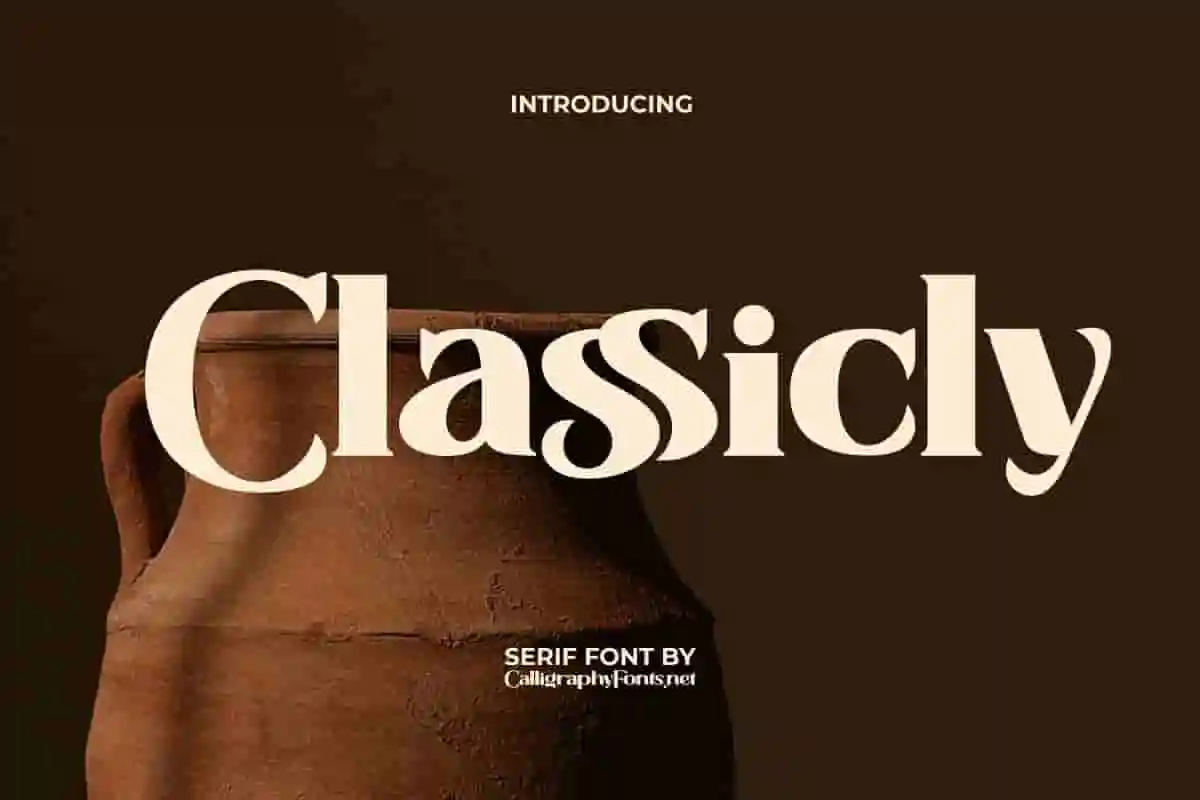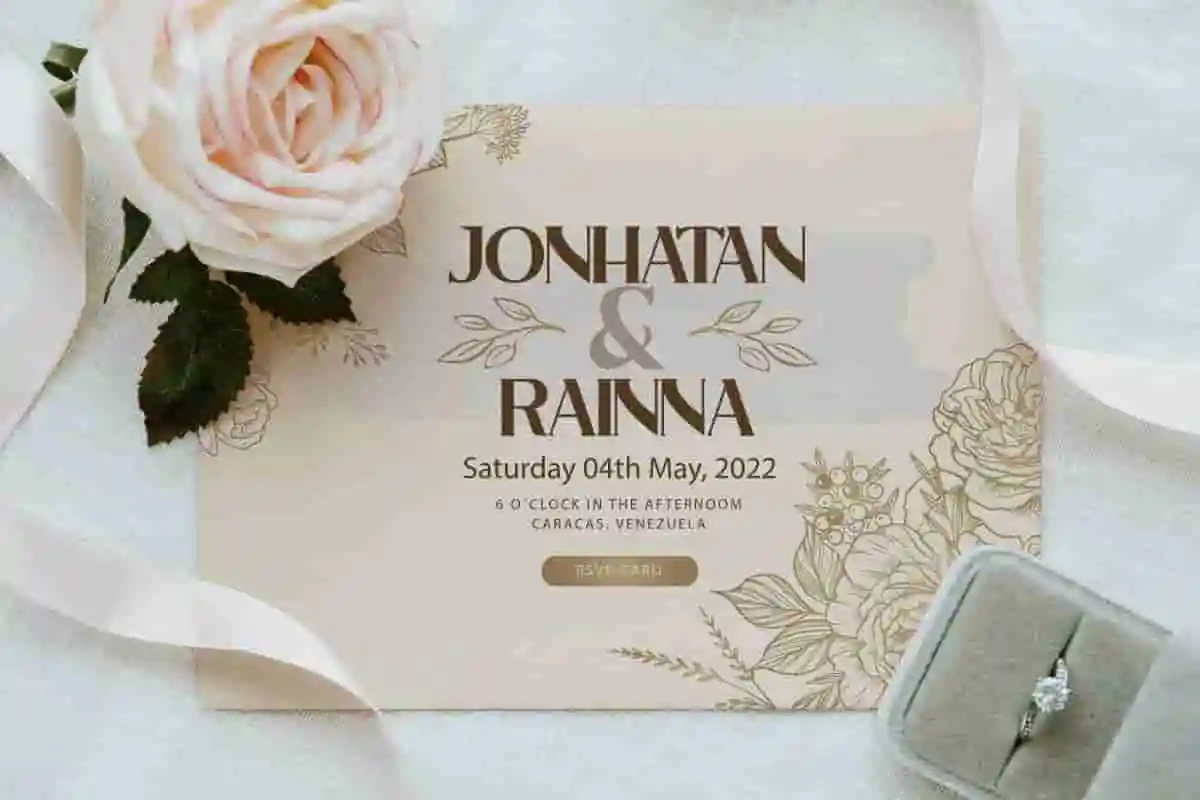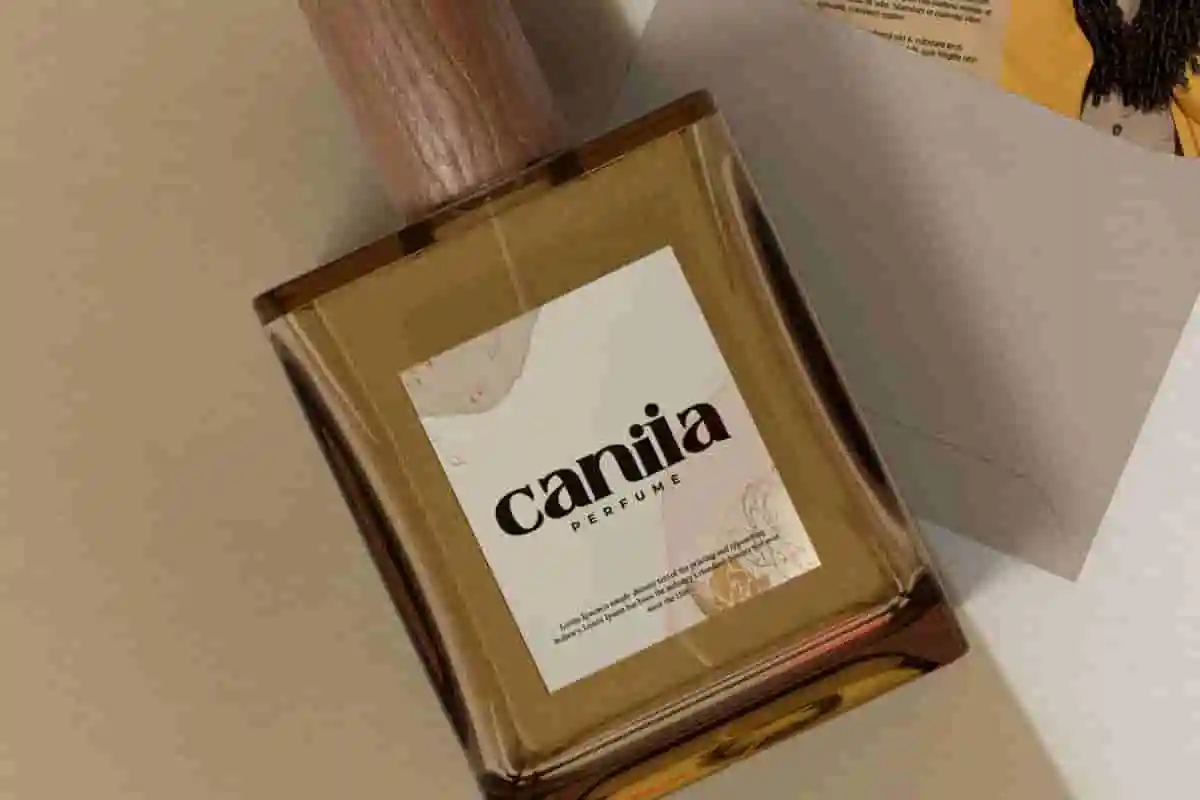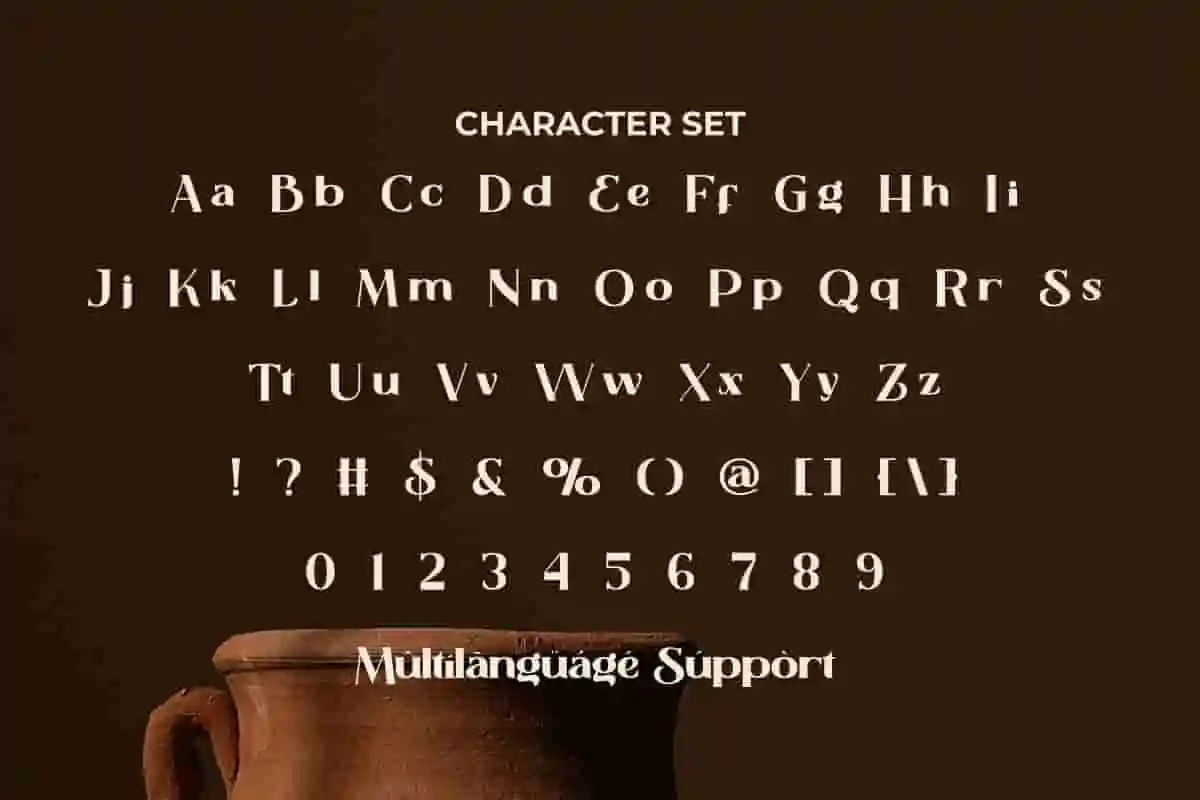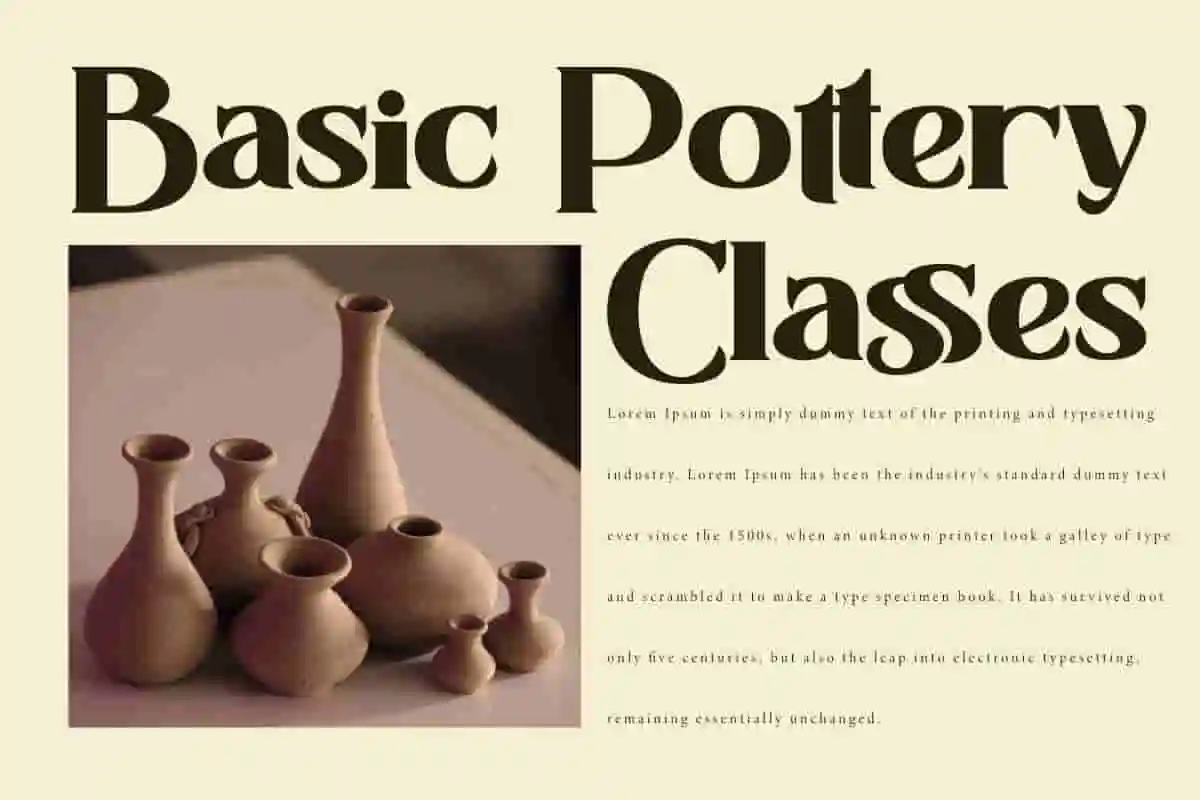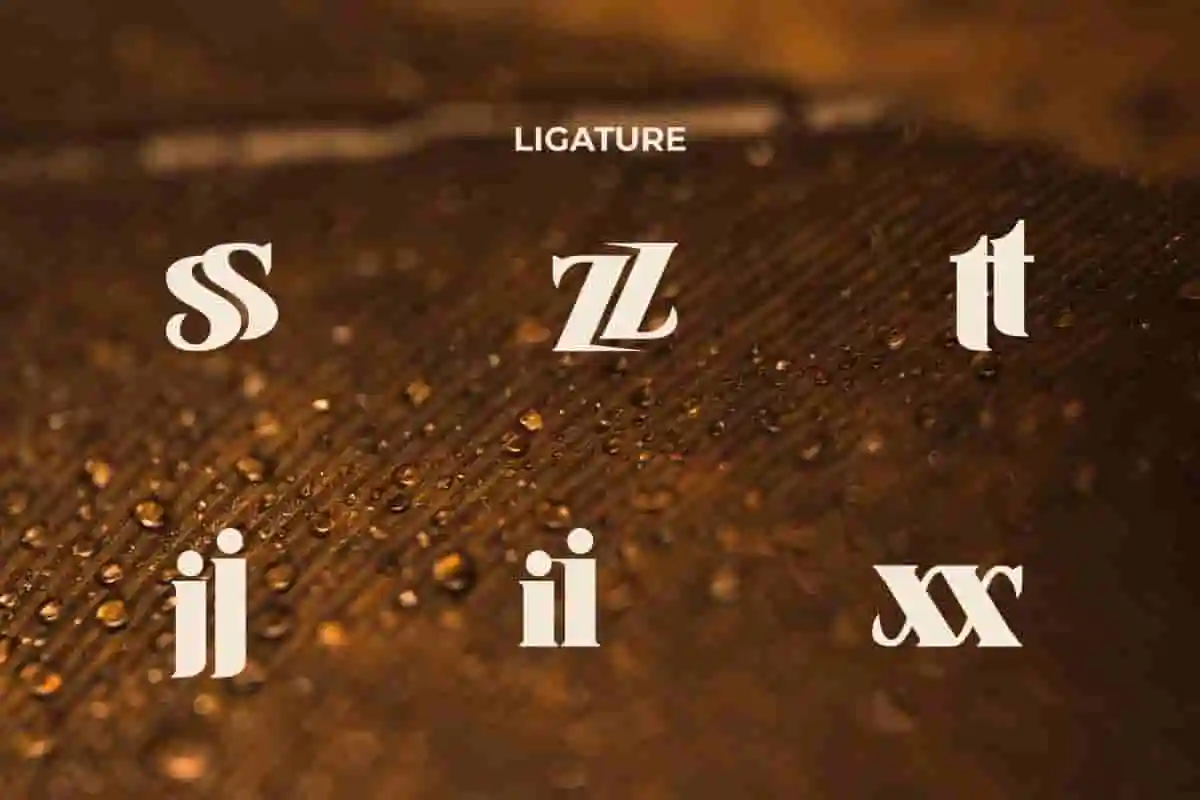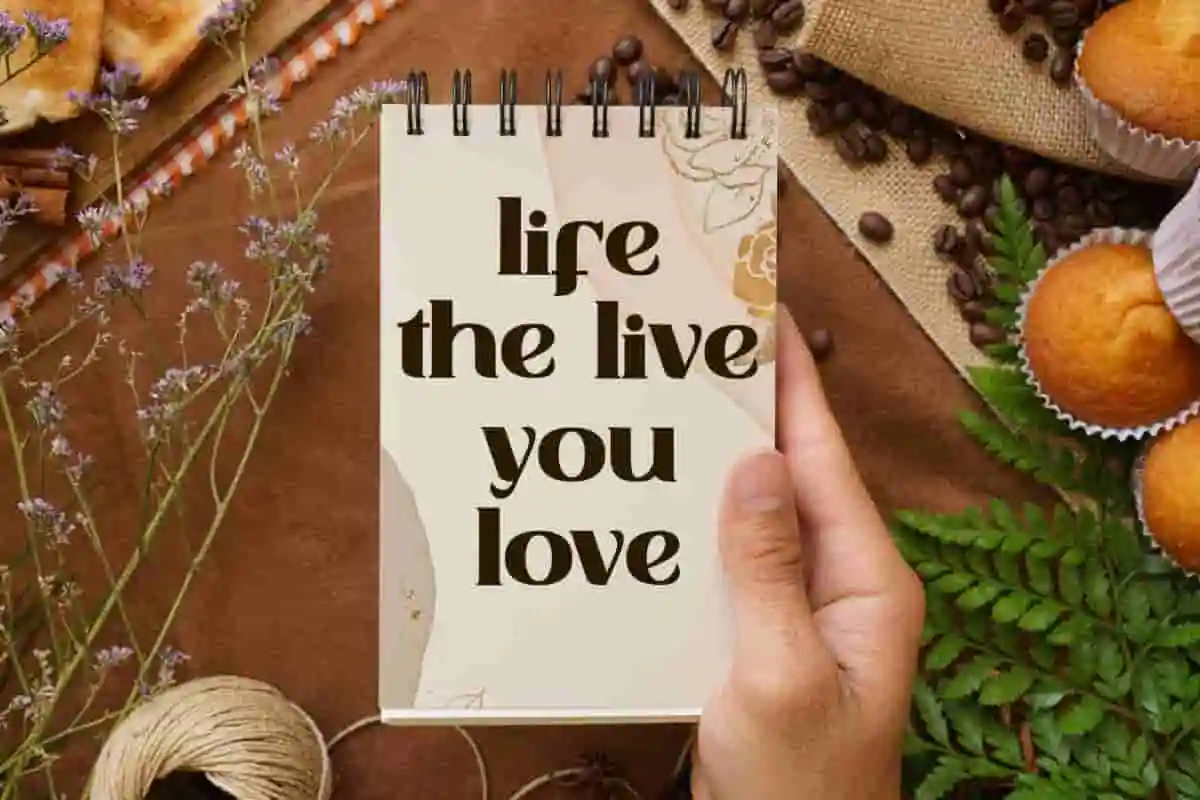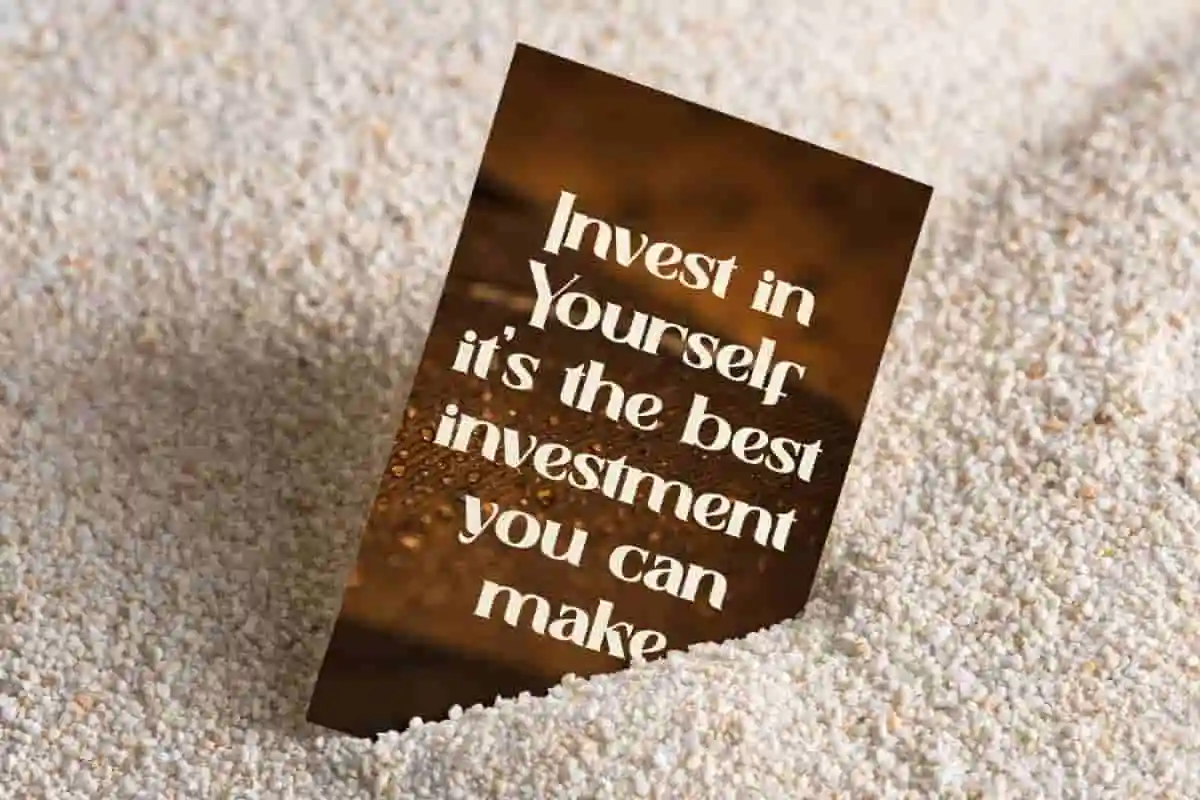
Classicly Display Font
Classicly Font is a stylish serif display font that has a sophisticated retro style, equipped with ligatures that help create stunning blog, brand logos, posts, quotes, and more.
Classicly Font is a classic serif display font that has a bold letter composition appearance equipped with ligatures that add artistic value to the font. Inspired by retro typefaces with meticulous craftsmanship. This typeface is perfect for those who want a vintage aesthetic so it’s perfect for blogs, brand logo, card designs, headers, invitation, label, stationery, title, website and much more.
Introducing Classicly Display Font – a timeless typeface designed to bring elegance, sophistication, and professional appeal to your creative projects. If you are searching for a font that captures the beauty of vintage charm while maintaining a modern edge, Classicly Display Font is the perfect choice.
Crafted with precision and artistry, this display font offers bold letterforms with refined details that make every design stand out. Its versatile style is ideal for branding, editorial layouts, signage, invitations, packaging, logos, and promotional materials. Whether you’re a graphic designer, business owner, or creative enthusiast, Classicly Display Font will help you deliver a strong and memorable visual impact.
The strength of this font lies in its ability to balance classic aesthetics with contemporary usability. Its sharp lines and sophisticated curves make it easy to pair with both serif and sans-serif fonts, giving you endless possibilities to create a polished and professional design.
Don’t settle for ordinary when your designs can embody elegance and character. With Classicly Display Font, every word becomes a statement of style and creativity.
Classicly Display Font is a serif font that has a vintage feel with a touch of modernization. It looks stunning at screen sizes and is easy to read at text sizes. It would be perfect for cafeteria, clothing brand, event organizer, fashion, graphic designs, florist, handicraft, homeware, photography, pottery, restaurant, wedding, and more.
Classicly Display Font comes with a complete set of Uppercase and Lowercase Basic Characters, Numbers, a large range of Punctuation, Symbols and Ligatures. It is supported with multilingual characters and ready to use both on Windows machine or Mac with simple installations. It’s tested to work well in the Adobe Apps (Illustrator, Adobe InDesign, Adobe Photoshop) CorelDraw, and others. PUA Encode Characters means you can access all the characters easily – Fully accessible without additional design software.